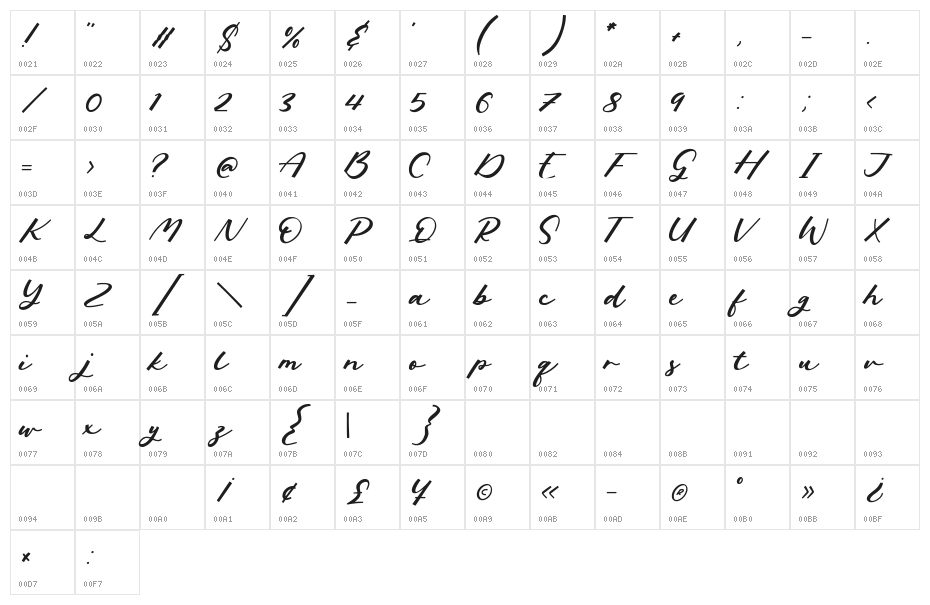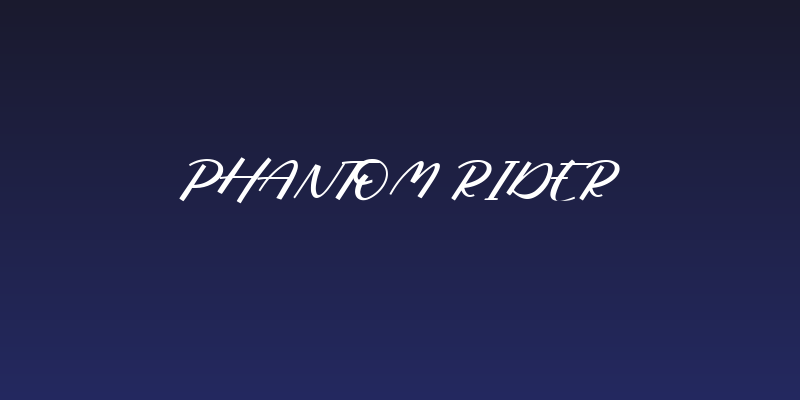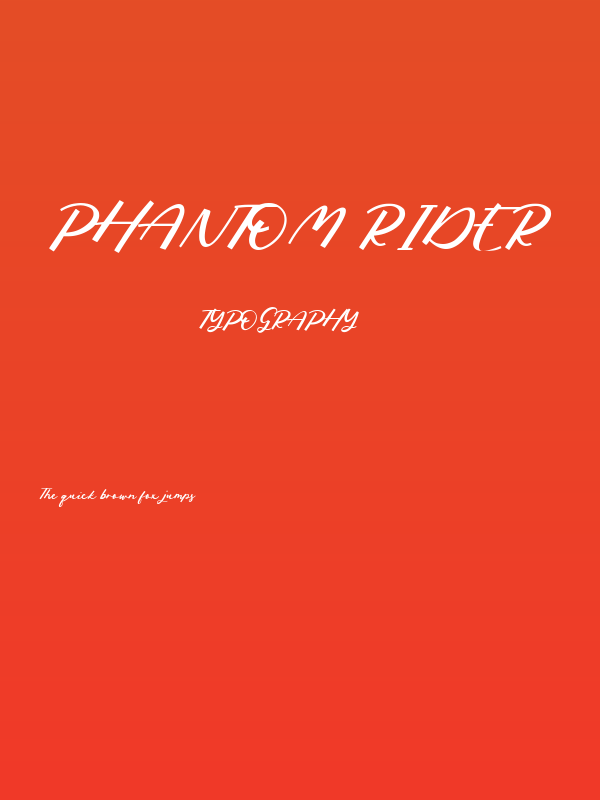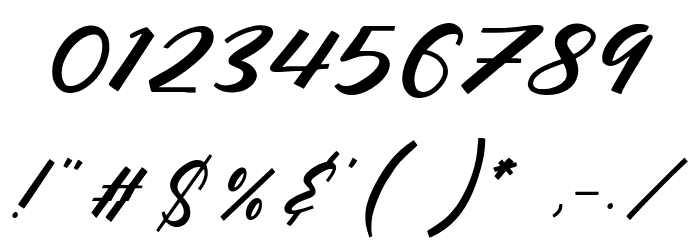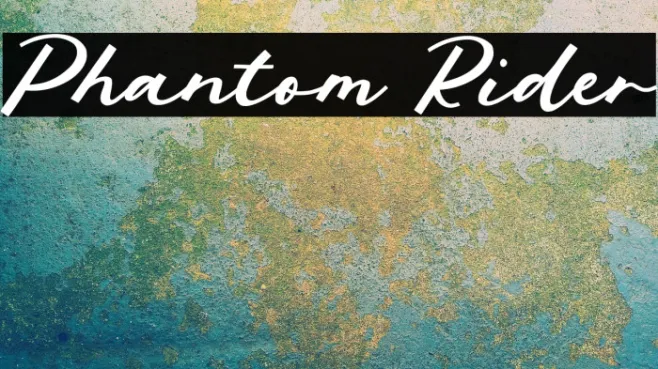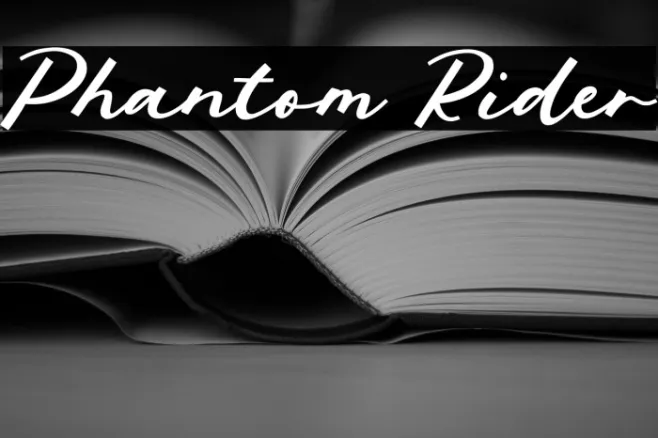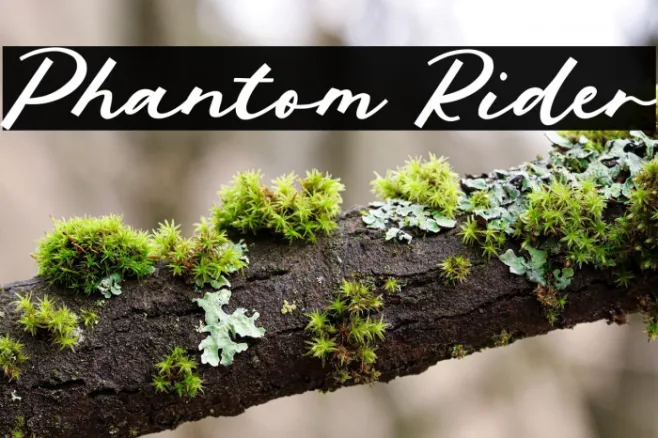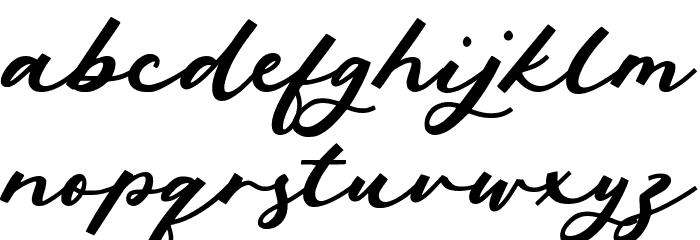
Phantom Rider Font
Phantom Rider Description
This font features a dynamic and flowing script style, characterized by its elegant and cursive letterforms. The uppercase letters are slightly slanted, giving a sense of movement and fluidity, while the lowercase letters maintain a consistent and harmonious flow. The numerals are designed to match the cursive style, ensuring a cohesive look across all characters. Special characters are included, maintaining the same stylistic elements. The overall appearance is both sophisticated and approachable, making it suitable for a variety of design applications.